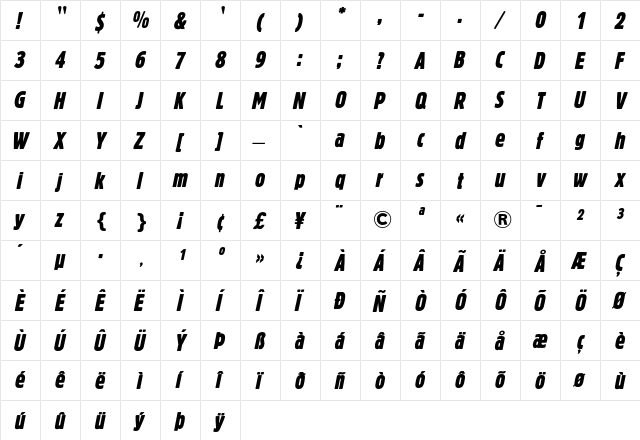
Block Berthold Extra Condensed Italic Font Preview
Design Context for Block Berthold Typeface
Block Berthold offers clean, dependable letterforms without strong stylistic allegiance, making it a practical choice for designers who need flexibility. Its italic angle brings a sense of urgency and motion to the letterforms. The condensed width makes it efficient for tight spaces without sacrificing legibility.
Pro Tip: Try Block Berthold for annotation and caption copy alongside an upright companion — the contrast in angle creates a dynamic but ordered typographic system.